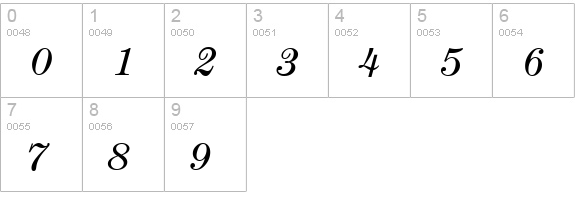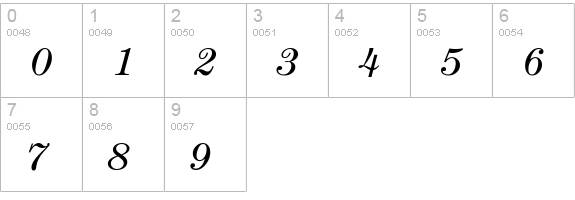
CenturyNova-BookItalic Font Details
CenturyNova-BookItalic is a sophisticated and elegant font that exudes a sense of refinement and class. Its italic style adds a touch of flair and uniqueness to any design project, making it perfect for conveying a sense of sophistication and style. The flowing curves and subtle angles of CenturyNova-BookItalic create a harmonious and pleasing visual aesthetic that is sure to captivate the eye. What's even better is that CenturyNova-BookItalic is available for free download at FontsMarket.com. Now you can easily add this stunning font to your collection without any cost. Whether you're working on a branding project, a wedding invitation, or any other design endeavor, CenturyNova-BookItalic is sure to elevate your work and leave a lasting impression. Download this beautiful font today and enhance your designs with its timeless elegance and charm.